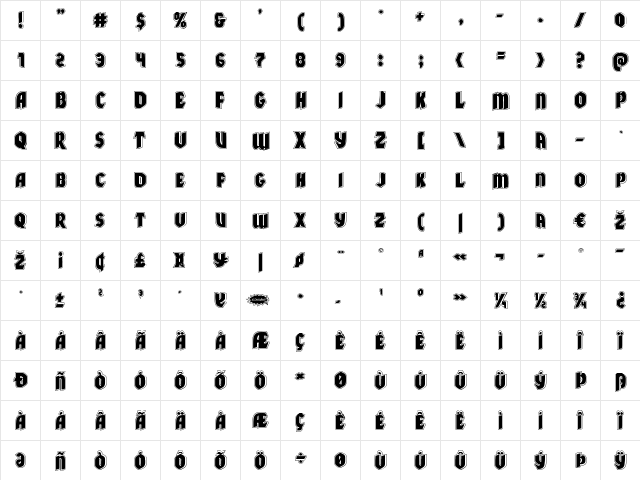
Xmas Xpress Academy Regular
Design Context for Xmas Xpress Academy Typeface
Xmas Xpress Academy is a composed and adaptable typeface that performs quietly and consistently across a wide range of design contexts.